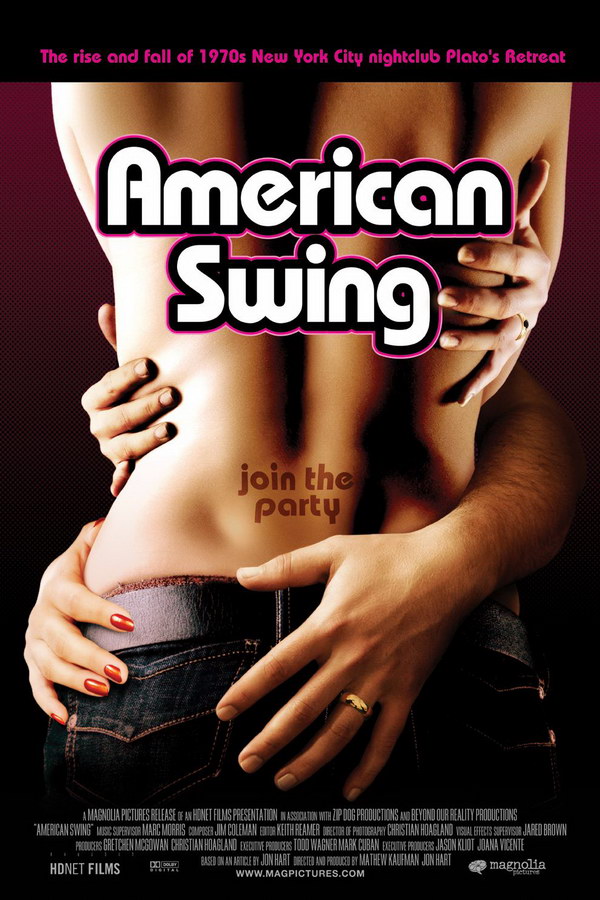
American Swing Font
DocumentaryAmerican Swing is a 2008 documentary film that explores the rise and fall of the famous New York City nightclub, Plato's Retreat during the 1970s.
The movie title in the poster uses a rounded serif font similar to ITC Bauhaus Bold designed by Edward Benguiat, Victor Caruso, and Herbert Bayer. More information about the font can be found here.